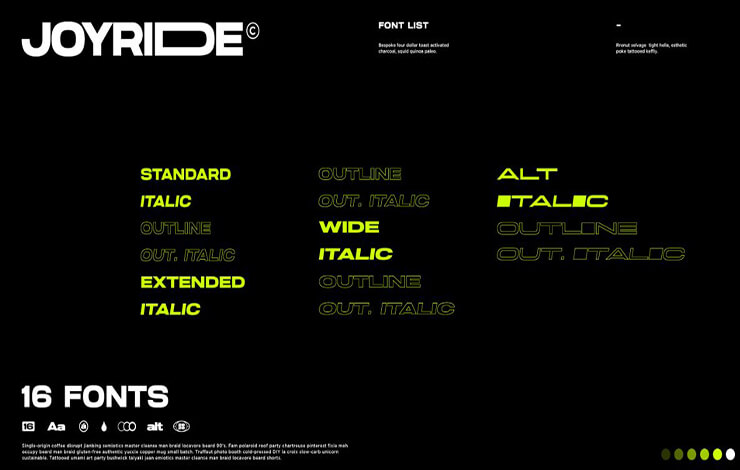
Joyride Wide Font is an extended variable width sans serif typeface that is perfect for a wide array of projects, this pick will thrive anywhere you let it.
Matthew Messiha is who took the charge of designing it. While this display font is published by digital foundry, Type Juice.
It has an extended texture created with thick strokes and adds sans-serif corners. While the height feels a little bit low than the standard size.
And this font family has contained 16 different variants. So, this font can truly work for big projects including display and printing.
Joyride Wide Font
You can also apply it to logos and wedding invitation cards, banners, hoardings, composing websites or game textures, business cards, fabric printing, social media posters, flyers, poster designs, product designs, and more.